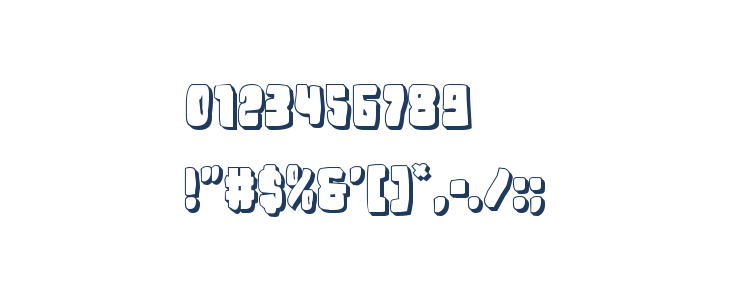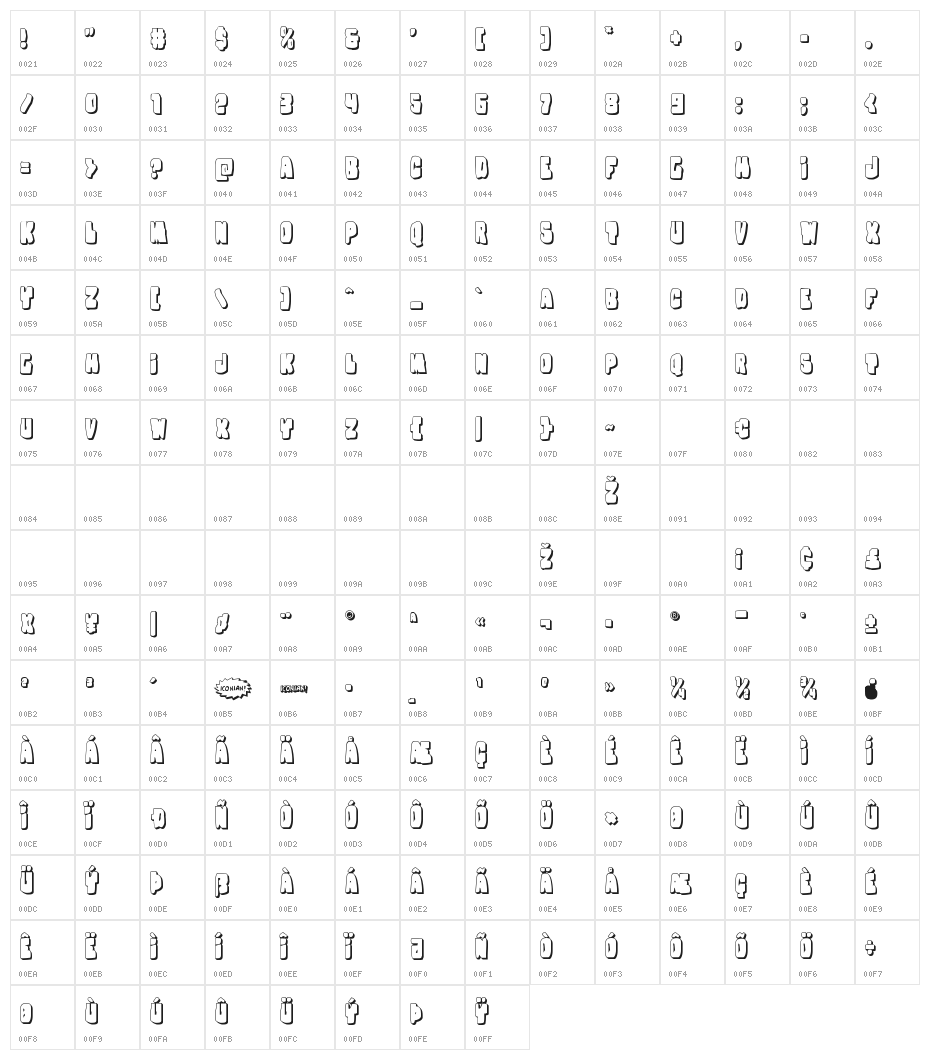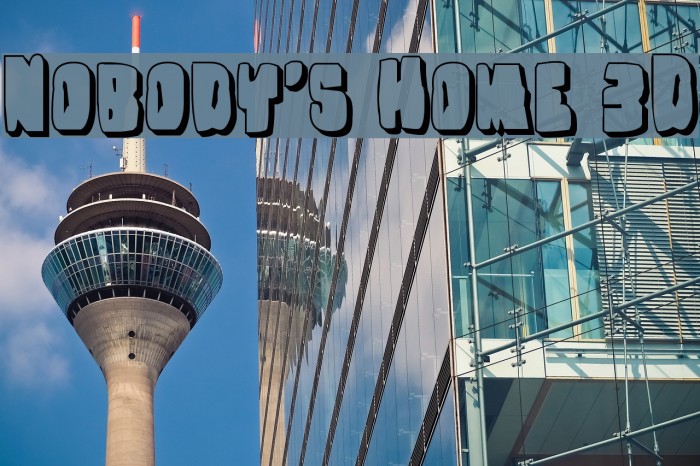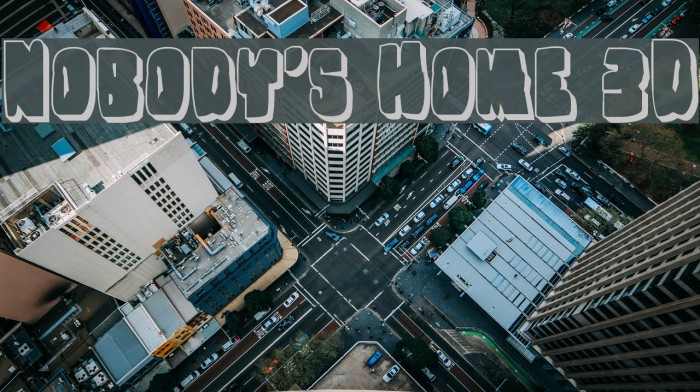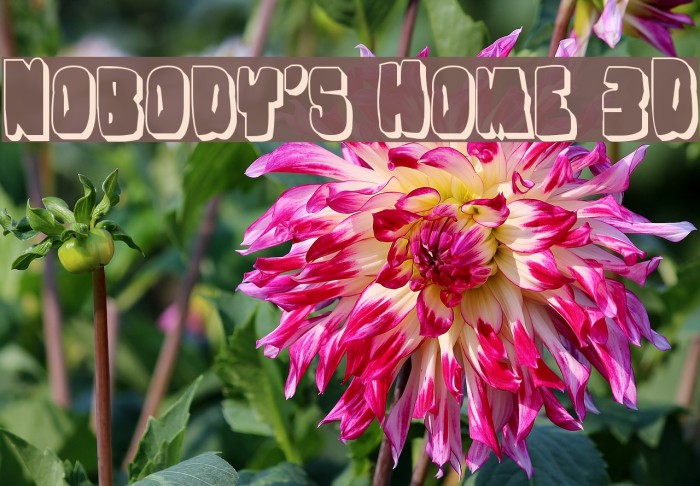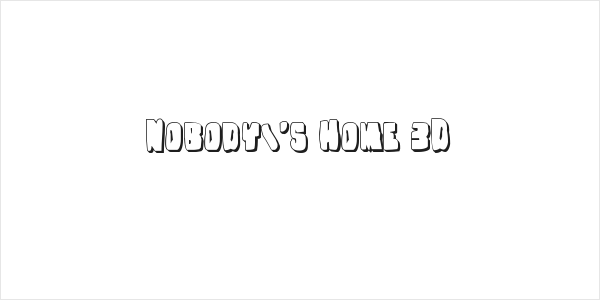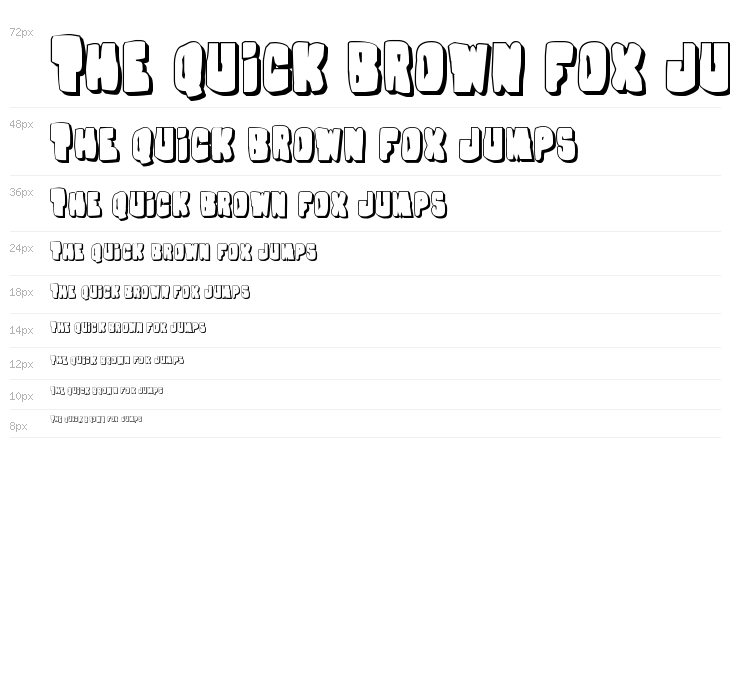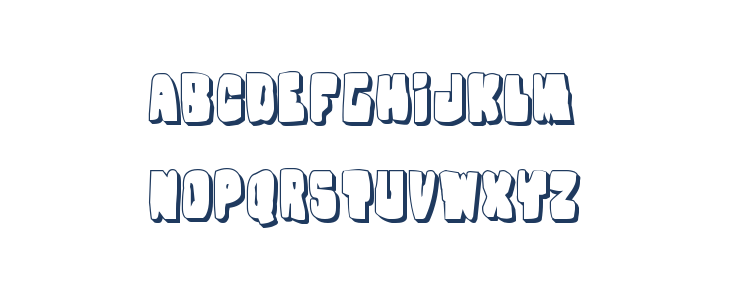
Nobody's Home 3D Font
Nobody's Home 3D Description
This font features a bold, playful 3D style with thick outlines and a cartoonish appearance. The characters are rounded and have a slightly irregular shape, giving them a whimsical and fun look. The uppercase and lowercase letters maintain a consistent style, with the numbers and special characters following suit. The font's design is eye-catching and ideal for projects that require a lively and energetic feel. Its unique 3D effect adds depth and dimension, making it stand out in any design context.
| Overall Style | Playful, Cartoonish |
| Proposed Projects | Ideal for children's books, comic strips, playful branding, and event posters. |